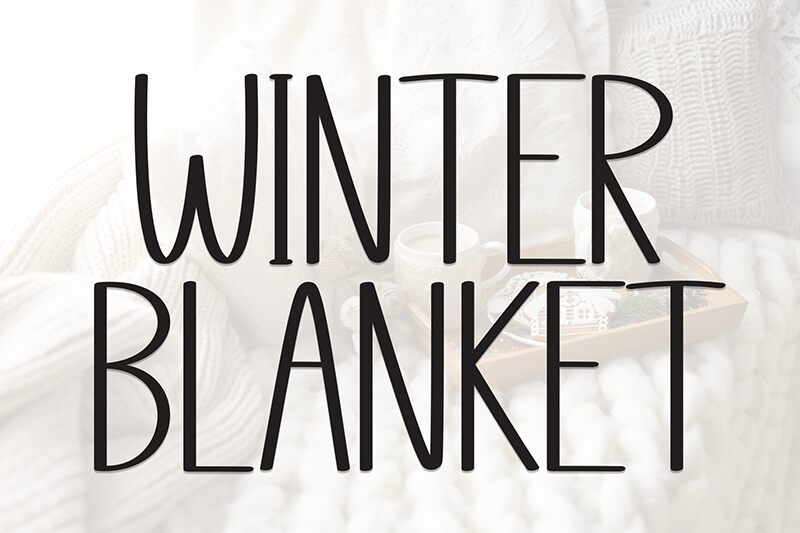
Winter Blanket
Winter Blanket font by Andi Moz is a condensed handwritten font, perfect for emphasizing words and turning heads around. The minimalist design clearly treats audiences with special messages whenever it’s used, especially since its style appears both modern and artistic.
Because it’s free, Winter Blanket can be added to posters, coloring books, and greeting cards. Use its handwritten lettering for quotes in magazines. Or edit an eye-catching advertisement or post with call-to-action texts that viewers won’t want to miss with this artwork.
This is a sweet and friendly handwritten display font. Cute and fun, this font is ideal for writing wedding invitations, cards, or any design that requires a playful touch!